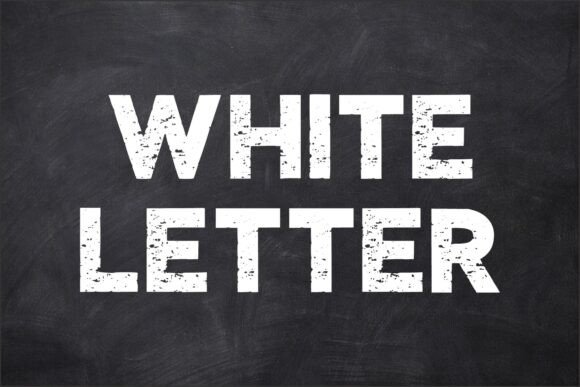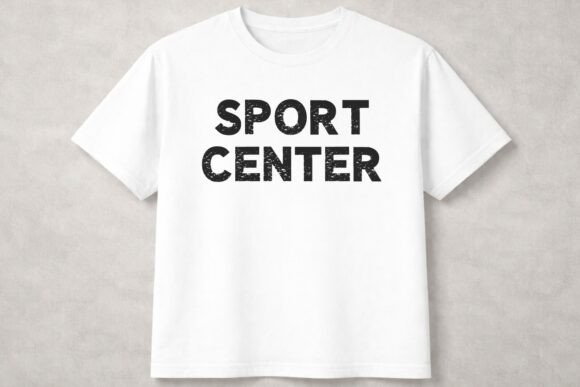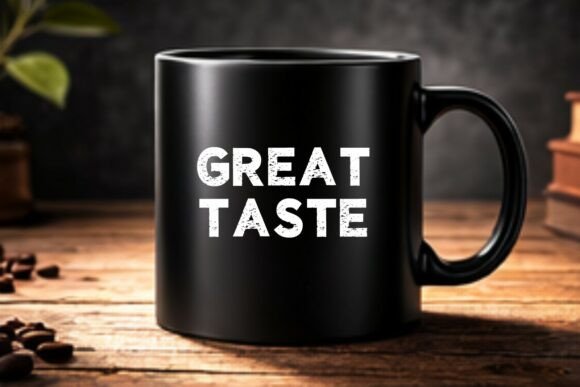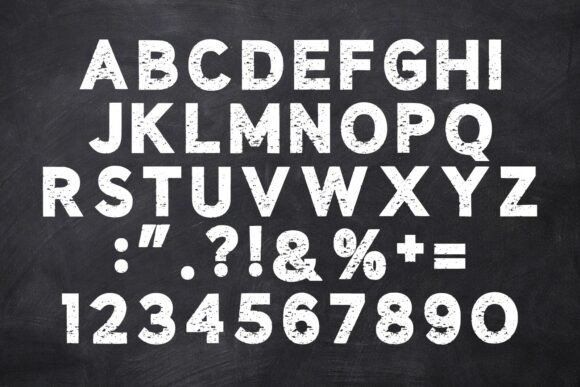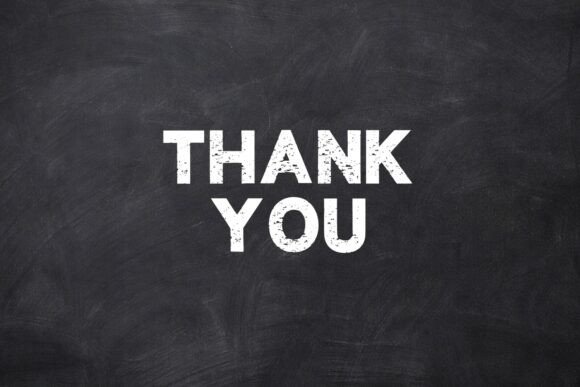
Timeless Charm: Bringing Classic Blackboard Vibes to Your Designs
Do you remember scribbling on the blackboard as a kid, watching the chalk dust dance in the air as you created your own secret messages and artwork? For many of us, those carefree moments on the blackboard are etched in our memories as some of the most magical times of our childhood. Now, designers can tap into that same nostalgic charm with the Chalk Rought Font, a distressed chalk-style display font that captures the essence of classic blackboard lettering.
This handcrafted font is perfect for bringing a touch of whimsy and authenticity to your designs, whether you’re creating school-themed projects, café menus, posters, or signage. Its textured finish and rough, distressed look add an extra layer of depth and character, making it a valuable asset for any designer looking to add some vintage flair to their work.
Key Features of Chalk Rough Font
- Unique Characteristics: The font features a unique, hand-drawn aesthetic with subtle texture and imperfections, giving it a distinctive, human touch.
Chalk Rough Font Review
As a designer, I’m always on the lookout for unique and creative fonts that can elevate my projects. The Chalk Rough Font is one such font that caught my attention, and I’m excited to share my honest review with you.
- Rough Texture**: The Chalk Rough Font’s texture is its standout feature. It adds a tactile feel to any design, making it perfect for creating a sense of nostalgia or retro vibe.
- Legibility**: Despite its rough texture, the font remains highly legible, making it suitable for a wide range of applications, from body text to headlines.
- Customization**: The font comes in a range of styles and weights, allowing for easy customization to suit different design needs.
- Limited Expressiveness**: While the font’s texture is its strength, it can also be a limitation in terms of expressiveness. It may not be suitable for designs that require a more modern or sleek look.
- May Not Scale Well**: The font’s texture can become distorted when scaled up or down, which may affect its overall appearance.
The Chalk Rough Font is a unique and creative font that can add a touch of personality to any design. While it has its limitations, it’s a great choice for designers who want to create a nostalgic or retro vibe. With careful use and customization, this font can be a valuable addition to any design arsenal.
Chalk Rough Font: A Practical Application Guide
Getting Started with Chalk Rough Font
Chalk Rough Font is a unique, distressed font that can add a vintage touch to your designs. To use it, follow these steps:
To get the most out of Chalk Rough Font, try combining it with other distressed fonts or textures. You can also experiment with different font sizes and styles to create a unique look.
Chalk Rough Font is perfect for:
• Creating vintage-inspired posters and flyers
• Adding a distressed touch to digital signage and presentations
• Designing rustic-themed wedding invitations and decorations